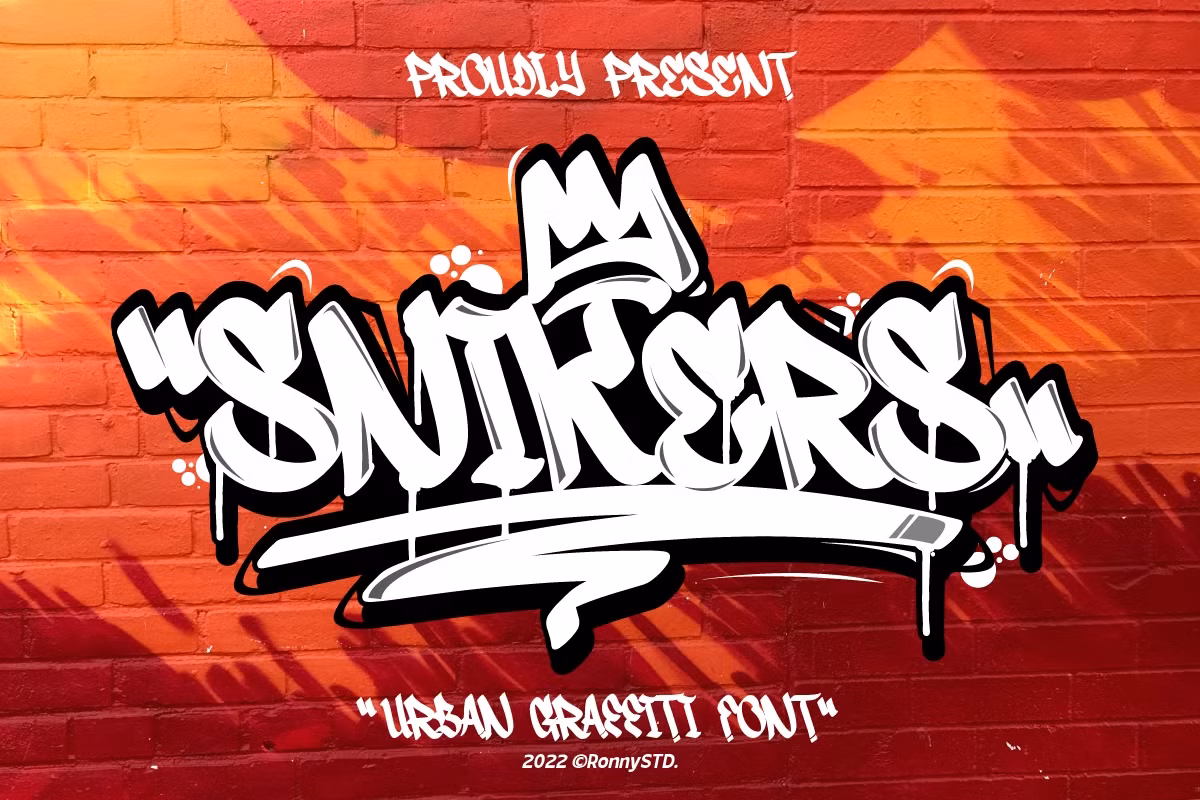
Snikers Urban Graffiti Font Free Download
Snikers Urban Graffiti Font Free Download is a bold, edgy typeface inspired by street art and urban culture. With its rough strokes, rebellious character, and graffiti-style design, this font is perfect for music posters, urban apparel branding, graffiti art, skateboarding logos, and anything that requires a gritty, urban aesthetic.
Its strong, expressive design captures the spirit of street culture, making it ideal for projects that need to stand out and make a statement. Whether you’re designing for a hip-hop event or a skate brand, Snikers Urban Graffiti Font Free Download adds boldness and energy to your typography.